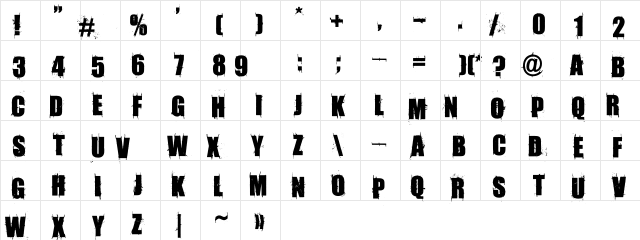
AmazMegaGrungeOne Regular
Design Context for AmazMegaGrungeOne Typeface
AmazMegaGrungeOne trades polish for personality, using distressed and eroded forms to bring grit and attitude to creative work.
Suited to punk-influenced zines, underground music branding, streetwear, and raw, anti-corporate design.
Pro Tip: Pair AmazMegaGrungeOne with intentionally raw or lo-fi design elements. Fighting against it with overly polished surroundings will undermine its personality.